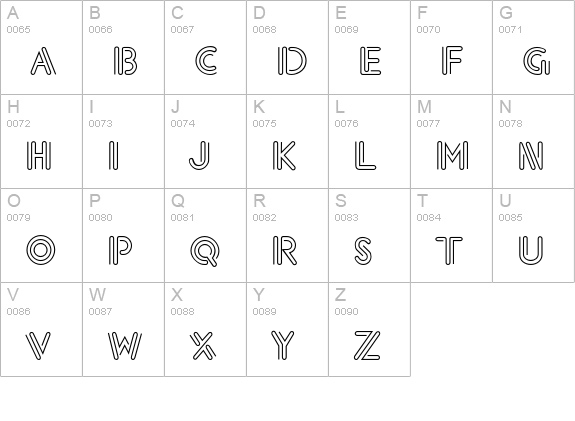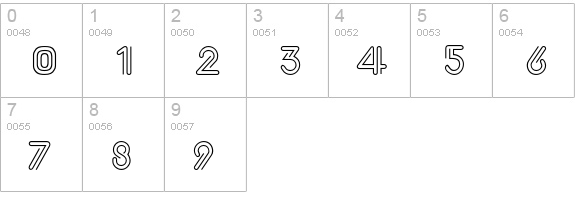
Lightbrigade Font Details
Lightbrigade font is a stunning and versatile typeface that exudes elegance and sophistication. With its clean lines and modern design, this font is perfect for a wide range of design projects, from branding to editorial layouts. The Lightbrigade font features a unique combination of sharp angles and gentle curves, creating a harmonious balance that is both eye-catching and easy to read. Best of all, Lightbrigade font is available for free download at FontsMarket.com. Whether you're a professional designer looking for a new addition to your font collection or a hobbyist seeking a stylish typeface for personal projects, Lightbrigade font is the perfect choice. Don't miss out on this fantastic opportunity to enhance your designs with this exquisite font that is both elegant and free to use.